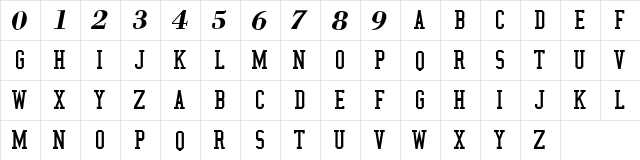
NBA 76ers Regular
Design Context for NBA 76ers Typeface
NBA 76ers is a composed and adaptable typeface that performs quietly and consistently across a wide range of design contexts.